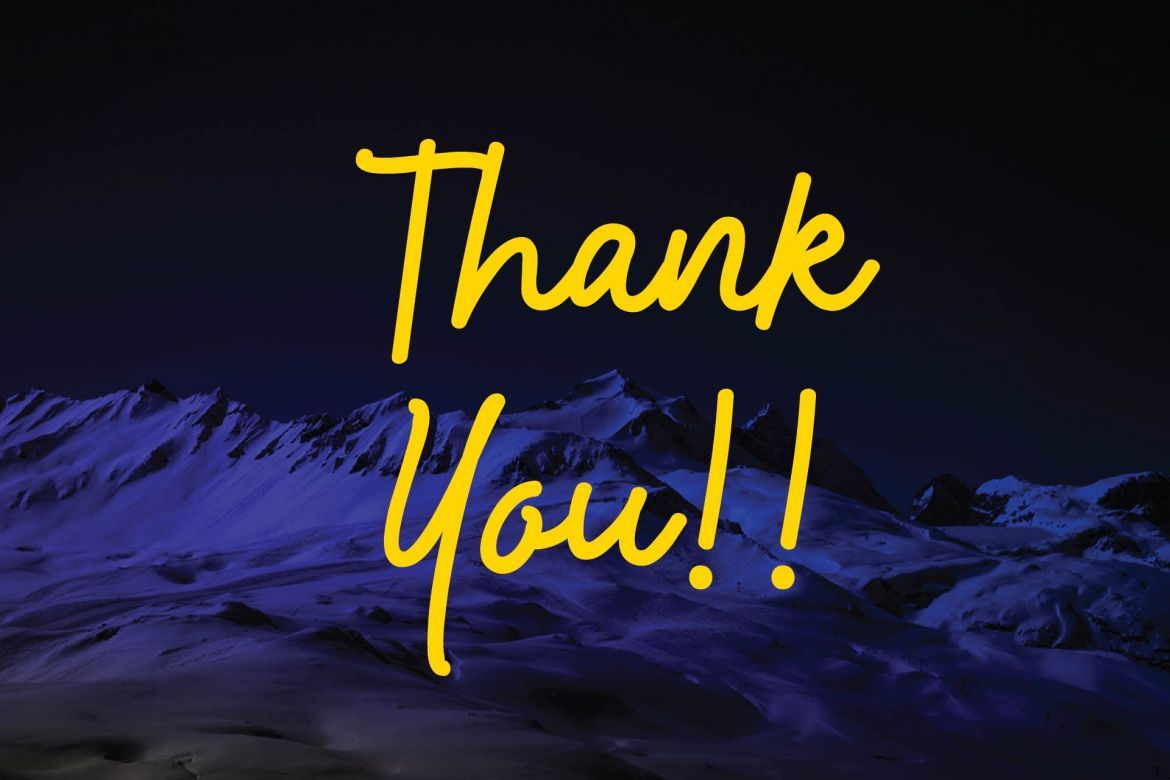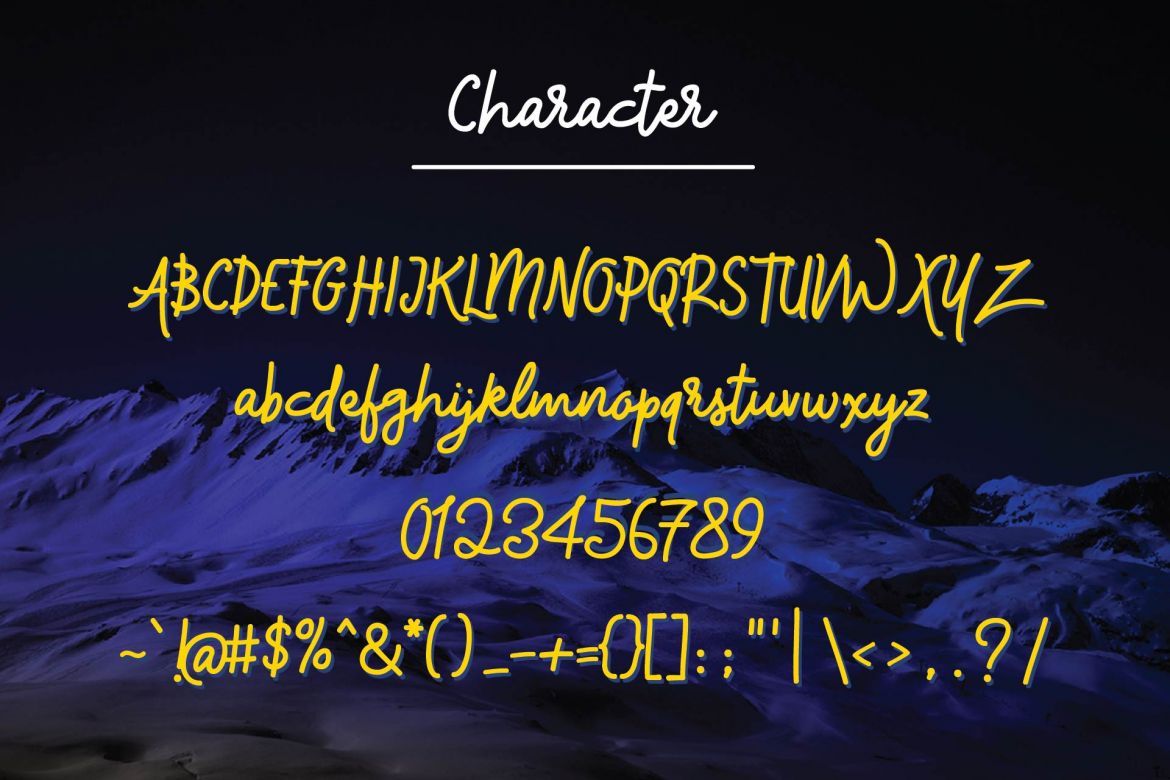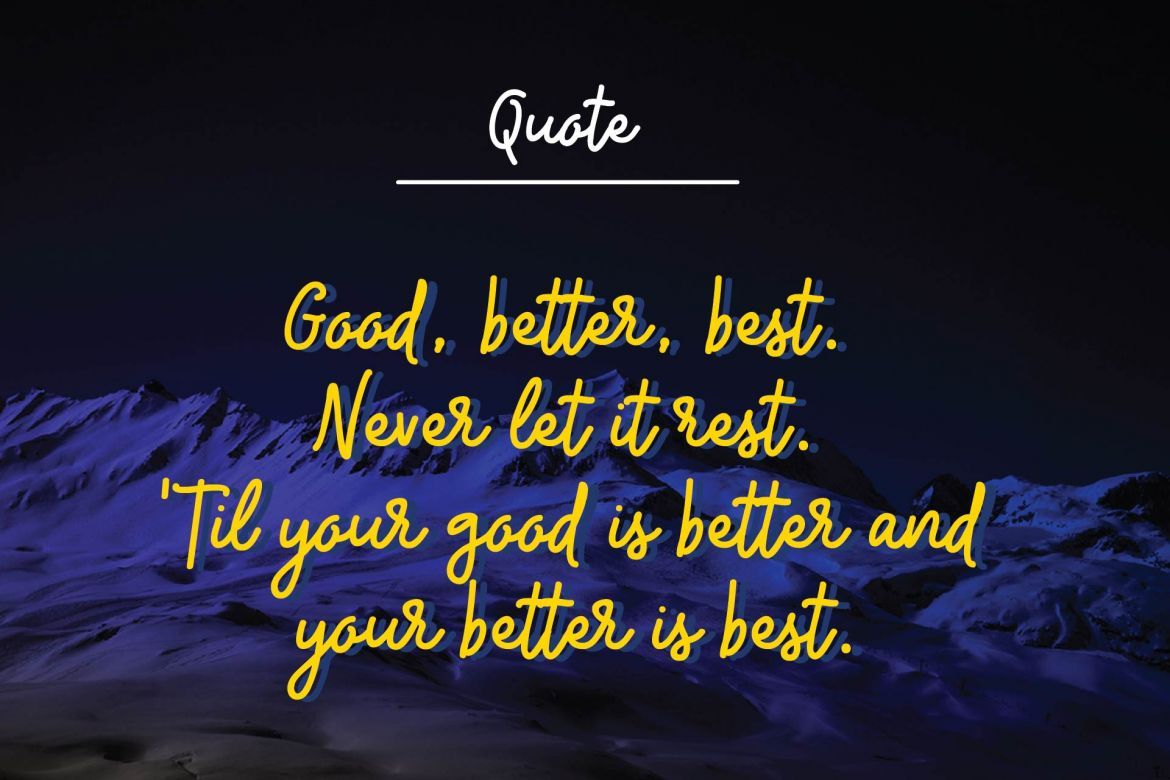
Magicline Typeface
Magicline Typeface is a A New Handwritten Monoline Script Lettering Typeface with Unique looks.
Great for Apparel Brand, Logos, printed quotes, invitations, image overlays, greeting cards, product packaging, text headers, any greeting cards, book cover, Painting design style, or any design that needs natural and personal touch & whatever else your imagination holds! Mix and match the alternate characters to add an attractive message to your design.